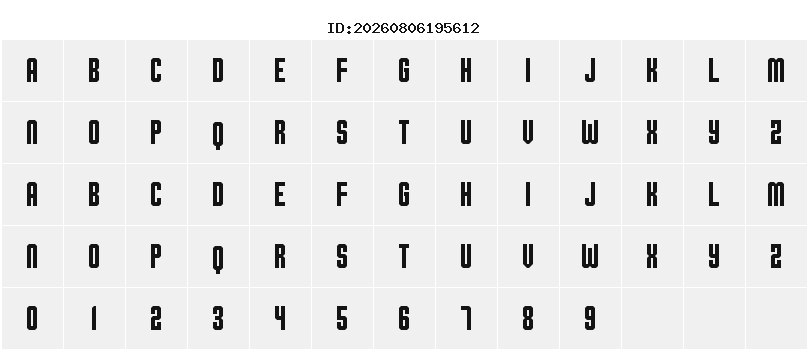
Ohio Collegiate Preview
• Font Name: Ohio Collegiate
• Designer: GeronimoFonts
• Description: ‚ÄúOhio Collegiate‚Äù was built with FontStruct
About Ohio Collegiate.ttf
Ohio Collegiate.ttf is a modern, elegant sans-serif font designed for ultimate readability and visual harmony. Perfect for branding, headlines, web design, and print materials.